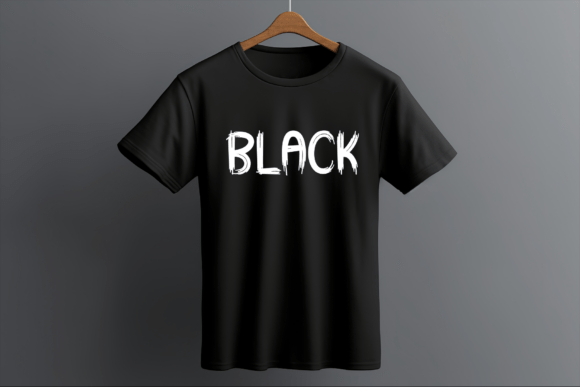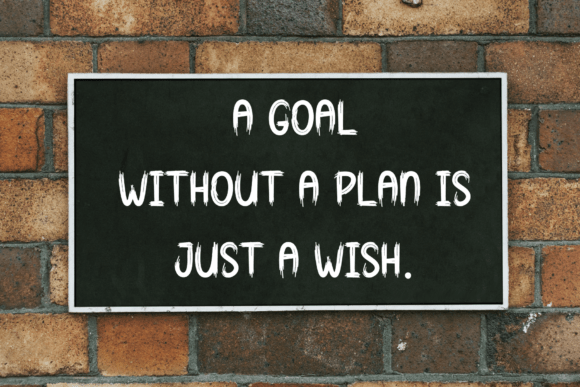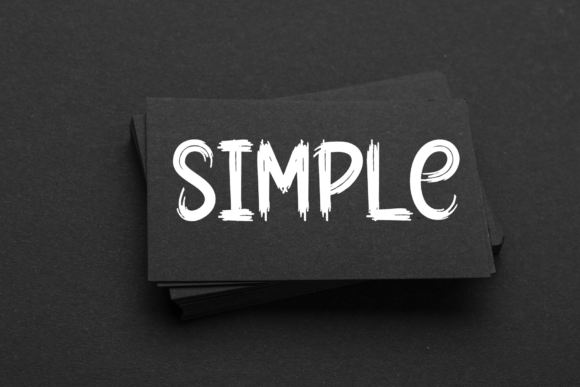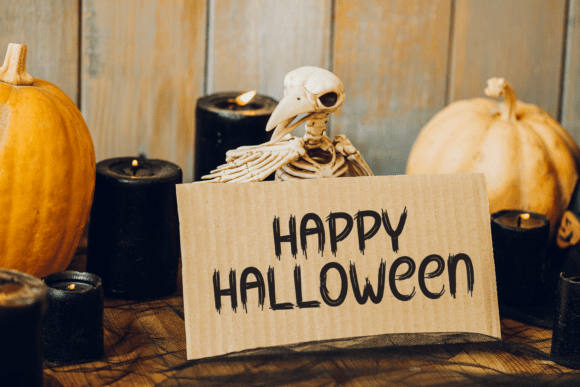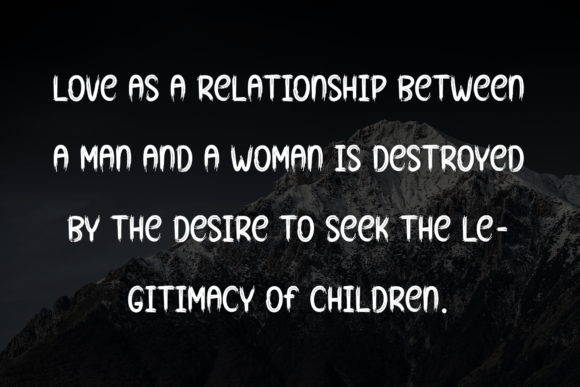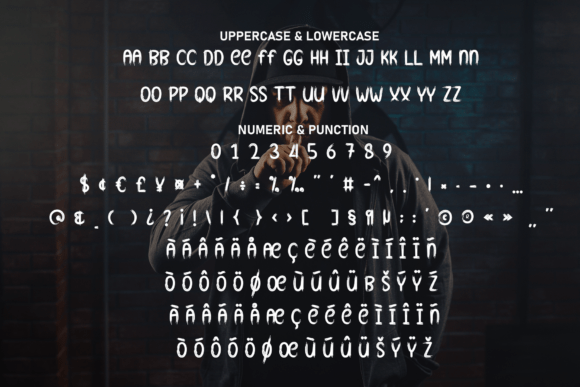
The Perfect Font to Kick Off the Weekend
It’s that moment when you’re brainstorming ideas for a new project, and suddenly, a spark of creativity strikes. You envision the perfect font – one that’s playful, charming, and instantly captures the essence of your design. For many designers, this moment is the start of something special, and it’s exactly what we’re about to explore with the Friday Killer Font.
Friday Killer Font Key Features
- Unique Characteristics: The Friday Killer Font features a distressed, grunge-inspired design with bold lines and textures, giving it a unique and edgy look.
- Font Style: The font is available in a single style, but with multiple weights, including light, regular, medium, bold, and extra bold, allowing for a range of design possibilities.
Friday Killer Font Review
As a designer, I’ve had the chance to work with a wide range of fonts, and I must say that “Friday Killer Font” is quite an interesting specimen. On the surface, it appears to be a bold, attention-grabbing font that can be used to create a sense of urgency or drama in your designs. ✨
- One of the things that I like about “Friday Killer Font” is its versatility. It can be used in a variety of contexts, from headings to titles, and it seems to work well in both digital and print formats.
- Another positive aspect of this font is its unique character. The bold, blocky letters give it a distinctive look that can help your designs stand out from the crowd.
However, there are also some limitations to consider. ⚠️
- For one thing, “Friday Killer Font” can be a bit overwhelming if used in large quantities. The boldness of the letters can be jarring if overused, and it may be difficult to create a cohesive look.
- Additionally, the font may not be suitable for all types of content. The bold, dramatic look may not be the best fit for more subtle or nuanced designs.
Overall, I would say that “Friday Killer Font” is a solid choice for designers who want to add a touch of drama or urgency to their designs. While it may not be the best fit for every project, it’s certainly worth considering for the right type of design.
The Friday Killer Font is perfect for creating bold and eye-catching headings, titles, and logos. It’s also great for adding a touch of edginess to your designs. Some common use cases include:
- Creating a bold and attention-grabbing logo.
- Designing a title or heading for a marketing campaign.
- Adding a touch of edginess to a social media graphic.
Alternatives to Friday Killer Font for Designers
1. Arial Black
Arial Black is a sans-serif font that is often used for headings and titles. It is a good alternative to Friday Killer Font when you need a bold, modern look without the edginess. Arial Black is more versatile and can be used in various contexts, from business to entertainment. It’s a safer choice compared to Friday Killer Font, which is more extreme in its design.
2. Impact
Impact is a sans-serif font that is known for its bold and dramatic look. It is a good alternative to Friday Killer Font when you need to make a statement or draw attention to a particular element. Impact is more aggressive than Friday Killer Font, but it can also be more difficult to read in long blocks of text.